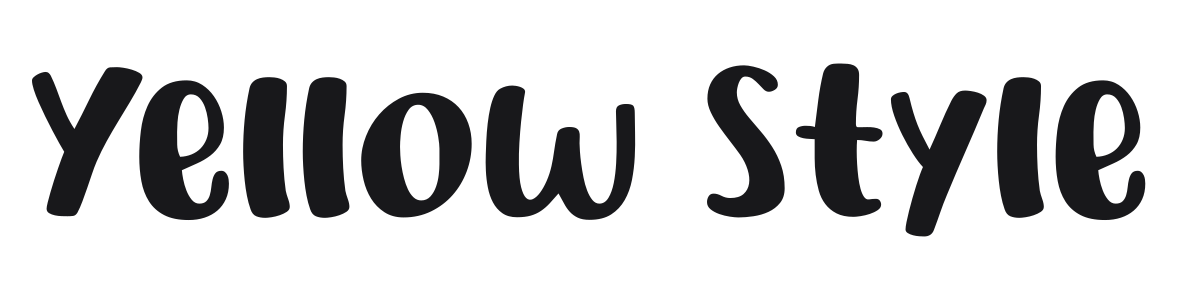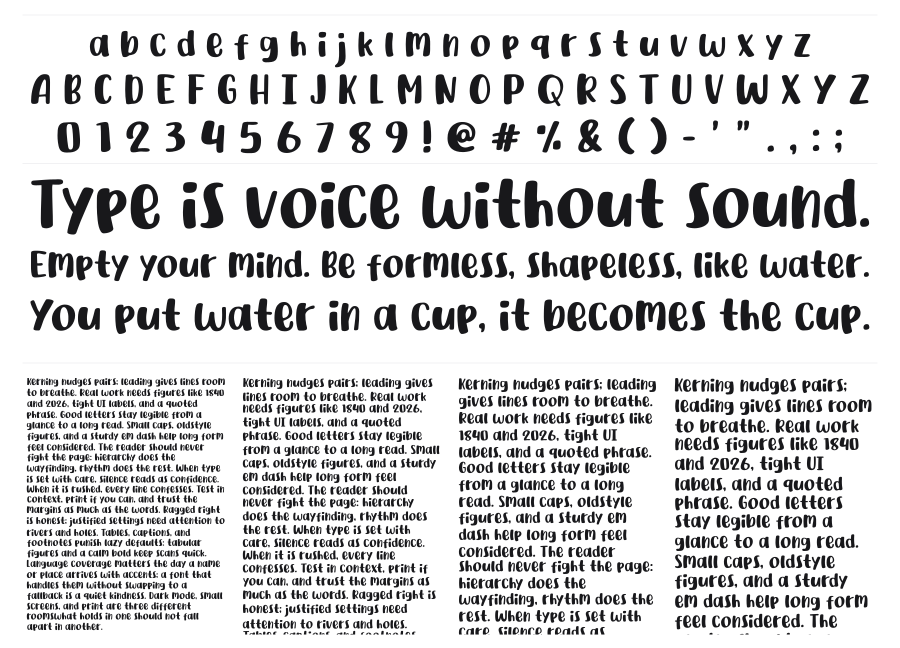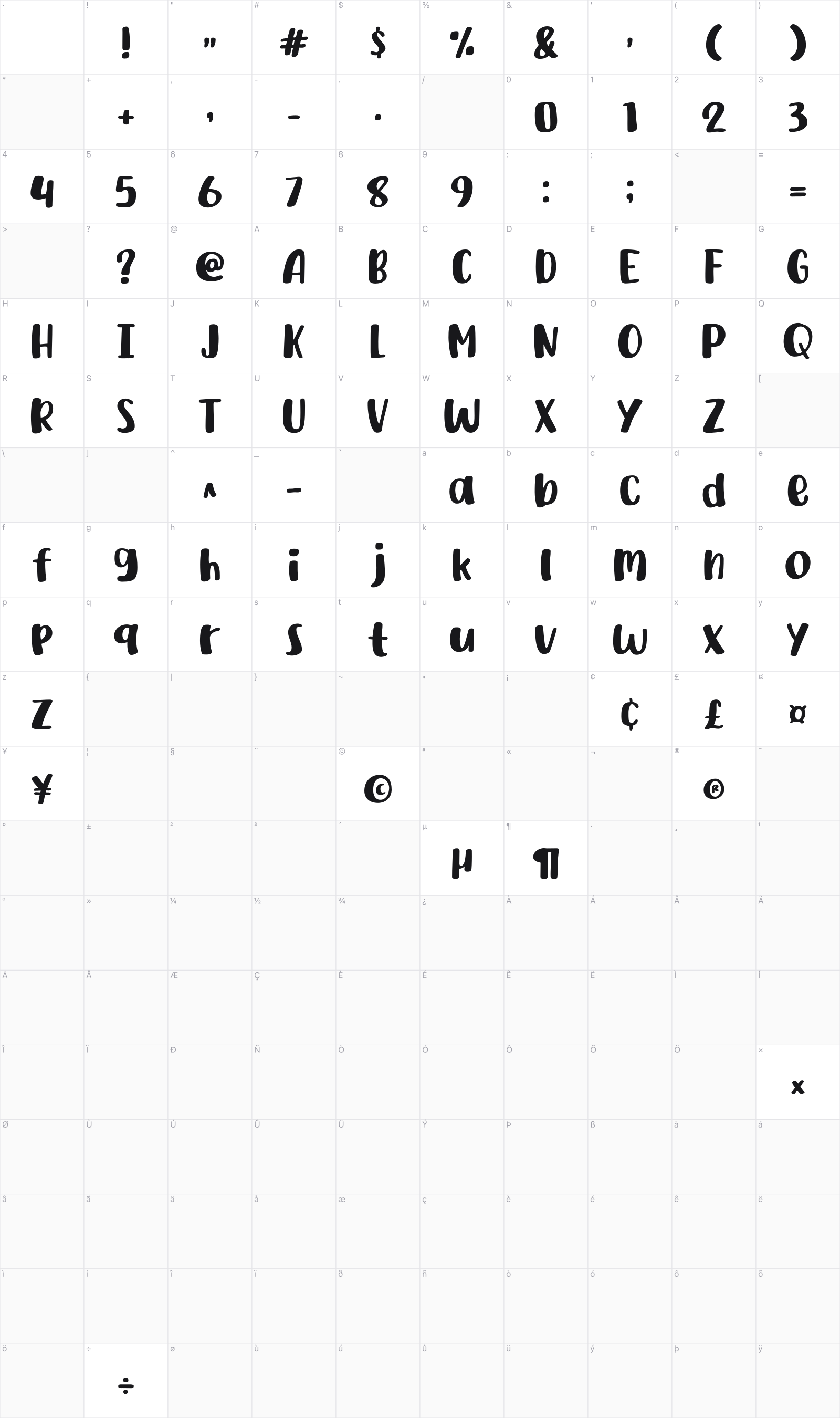
Yellow Style
Yellow Style is a bold upright casual script with chunky, rounded strokes and an energetic hand-lettered bounce. The thick, low-contrast letterforms feel spontaneous but legible, sitting somewhere between a brush pen and a marker. It brings warmth and personality to packaging, social graphics, and casual brand identities.